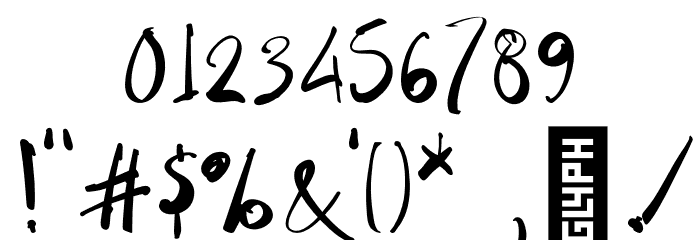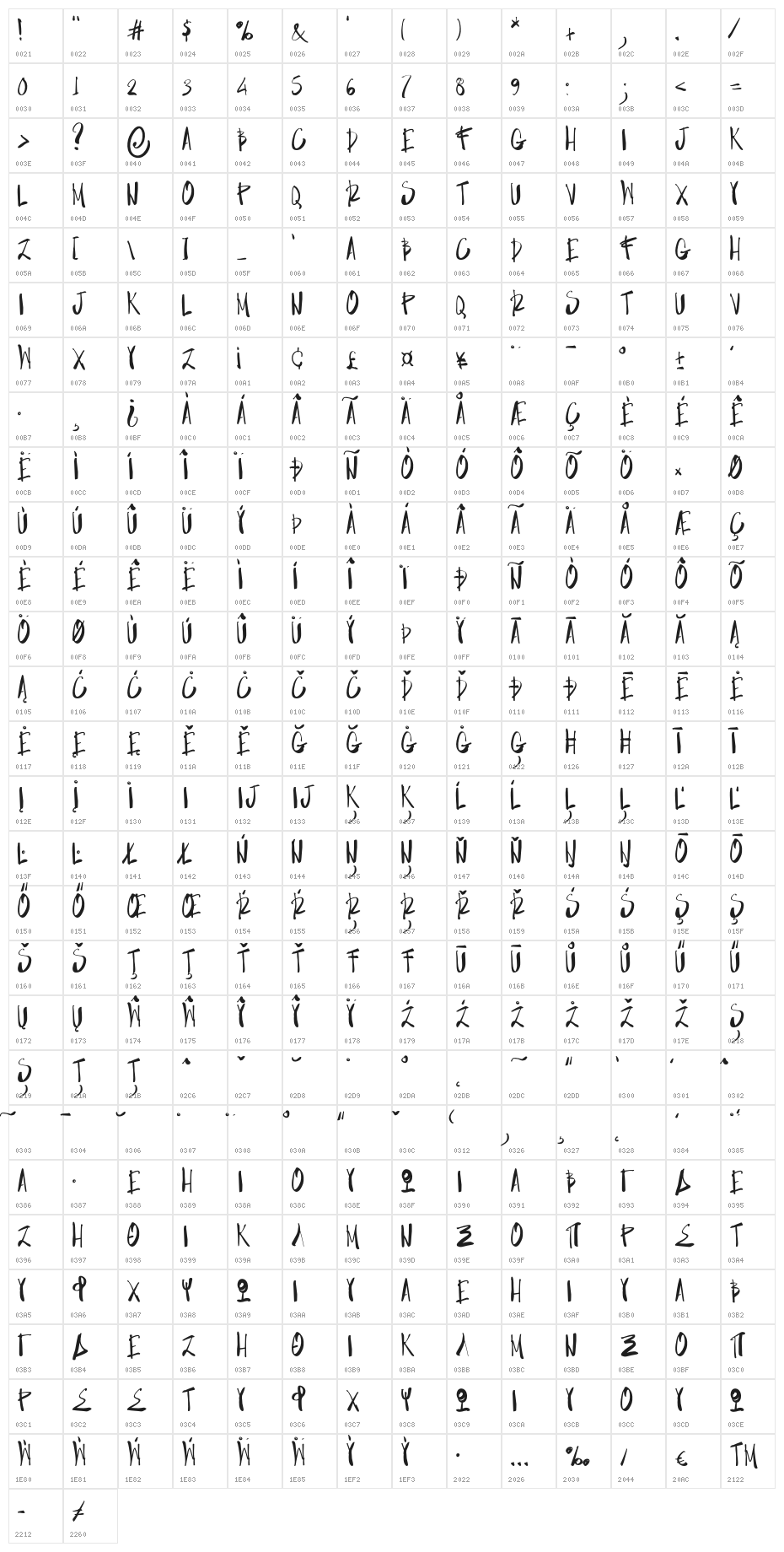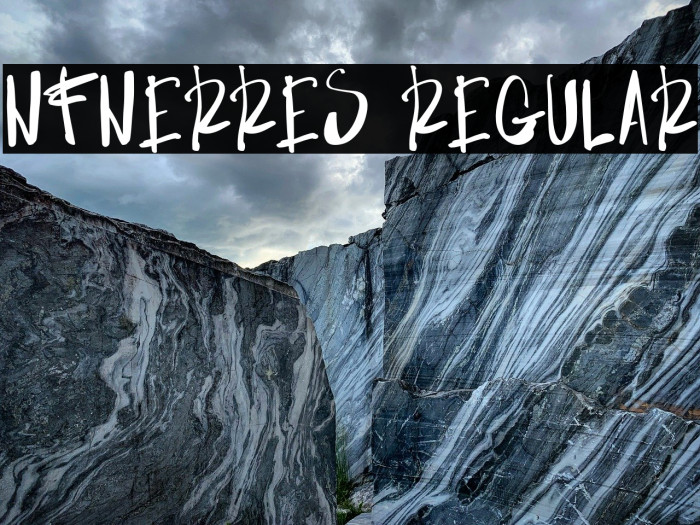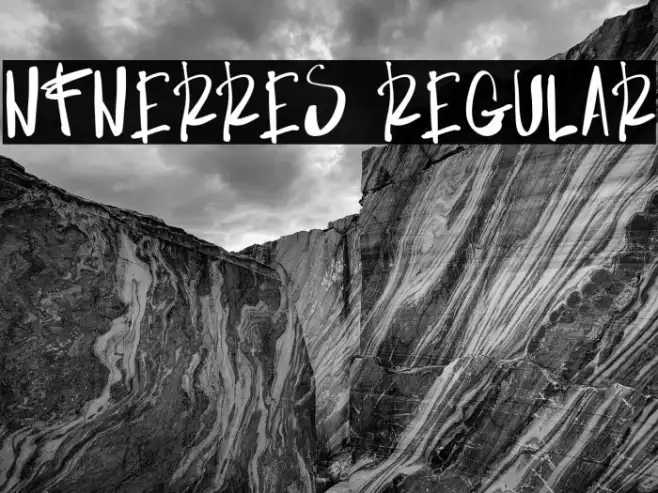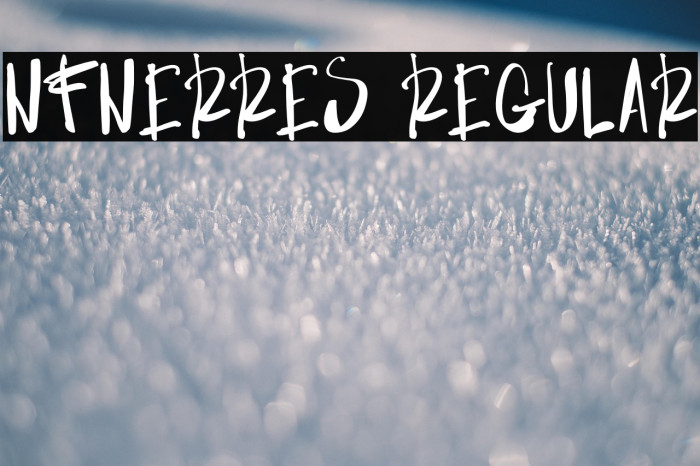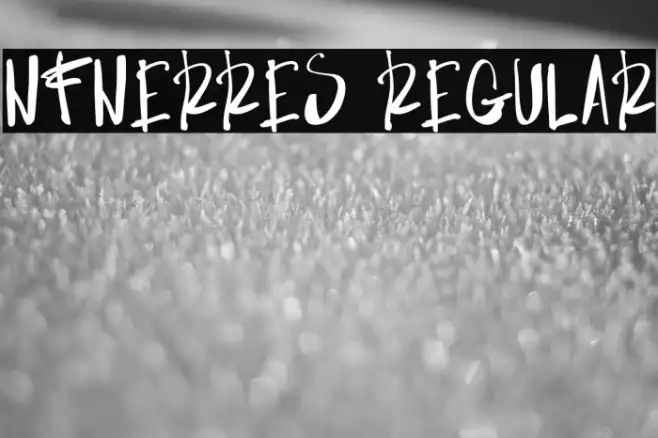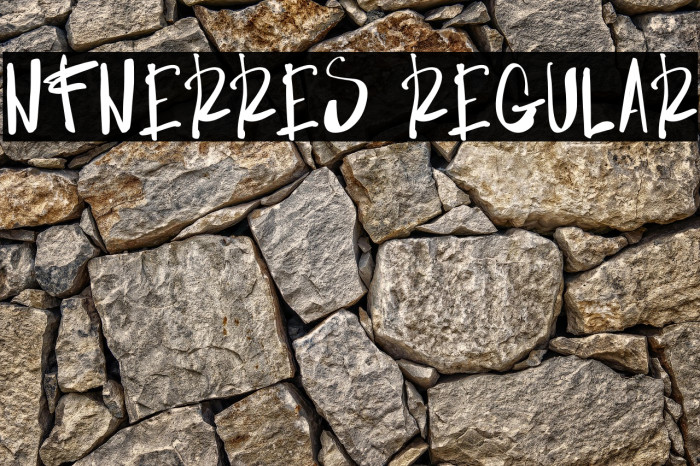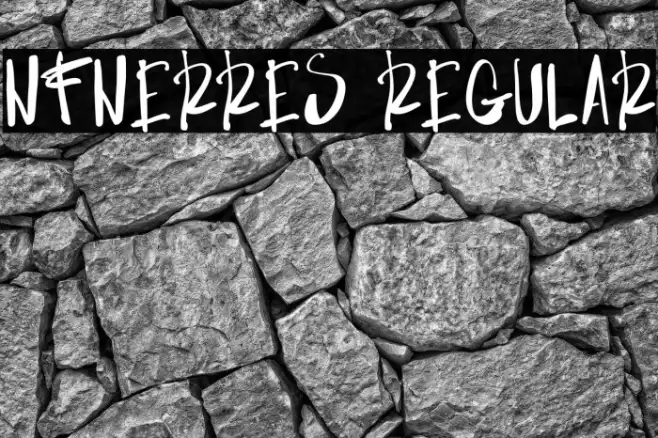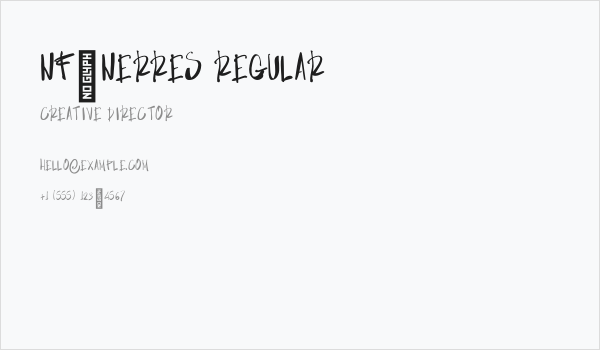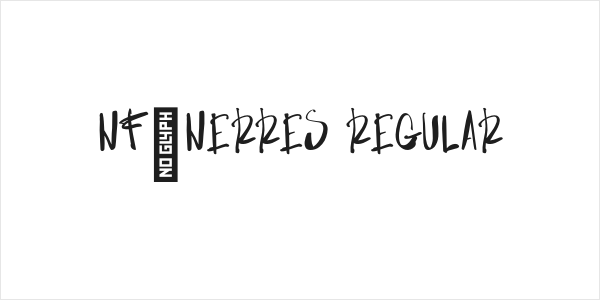
NF-NERRES Regular Font
NF-NERRES Regular Description
This font exudes a playful and energetic vibe with its bold, handwritten style. The letters are characterized by their irregular shapes and varying stroke widths, giving it a dynamic and informal appearance. The uppercase and lowercase letters maintain a consistent style, with some letters featuring unique embellishments that add to its quirky charm. The numbers and special characters follow the same lively design, making the font versatile for creative projects. Its overall look is reminiscent of graffiti or street art, making it ideal for designs that require a bold, artistic touch.
| Proposed Projects | Ideal for posters, album covers, streetwear branding, and creative social media graphics. |